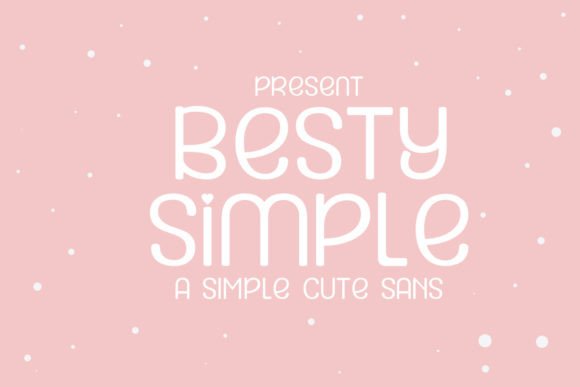
In a world where fashion and design converge, there exists a font that embodies the essence of charm and playfulness: Besty Simple Font. Created by the visionary edwar.sp111, Besty Simple Font is not just a collection of letters; it's a gateway to a realm of creative expression.
Step into the world of Besty Simple Font and discover a display font that dances with delight, exuding an aura of fun and whimsy. Each character in this font family is meticulously crafted to convey a sense of joy and lightheartedness, making it the perfect companion for projects that aim to capture the essence of happiness and innocence.
With its clean and clear lines, Besty Simple Font brings a breath of fresh air to your designs. The font's simplicity is its strength, allowing it to blend seamlessly with various backgrounds and design elements without overpowering them. Whether you're working on a fashion design, a children's book, or a playful social media campaign, Besty Simple Font will add a touch of enchantment to your creations.
Imagine the impact of Besty Simple Font on your fashion designs. Its playful charm will infuse your garments with a sense of youthful exuberance, making them irresistible to fashion-forward consumers. Your designs will leap off the screen, captivating audiences with their infectious energy and captivating allure.
Beyond fashion, Besty Simple Font is a versatile chameleon that adapts effortlessly to diverse design projects. Unleash your imagination and explore the endless possibilities it offers. Create eye-catching posters that demand attention, design whimsical invitations that spark joy, or craft social media posts that spread happiness like wildfire.
With Besty Simple Font as your creative ally, you'll find yourself immersed in a world of limitless possibilities. Its versatility knows no bounds, making it the perfect choice for designers seeking to add a touch of magic to their work.